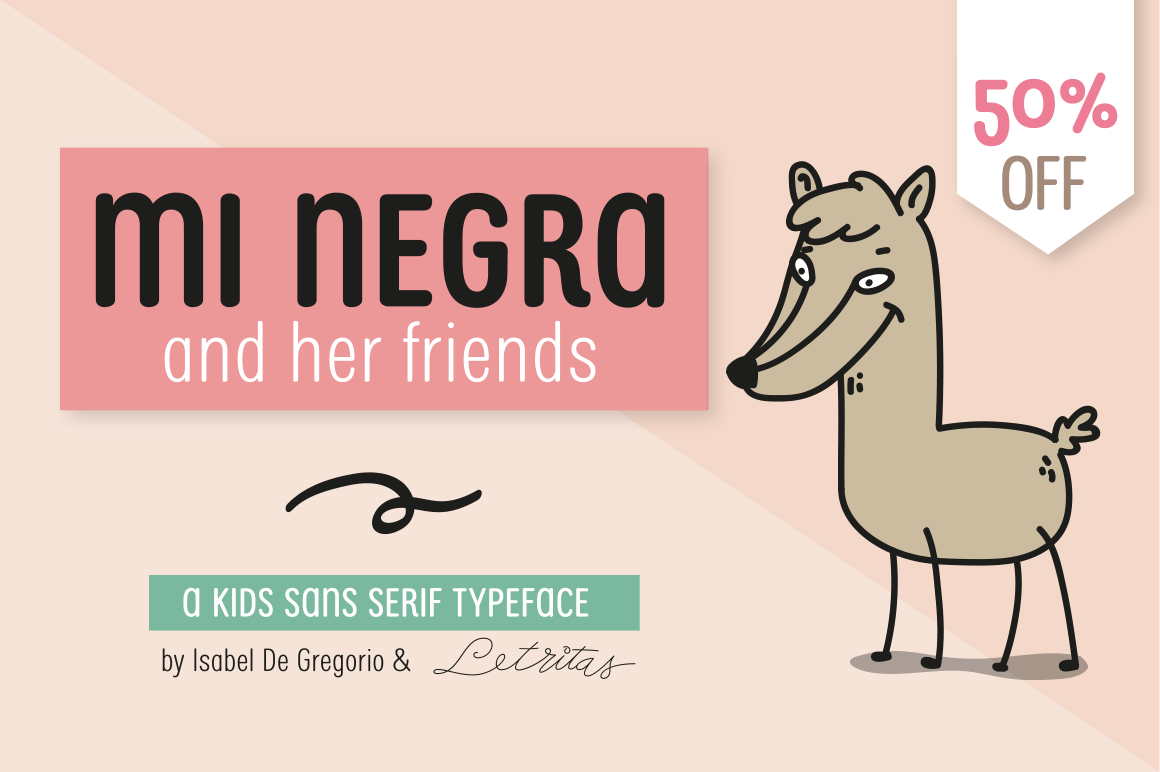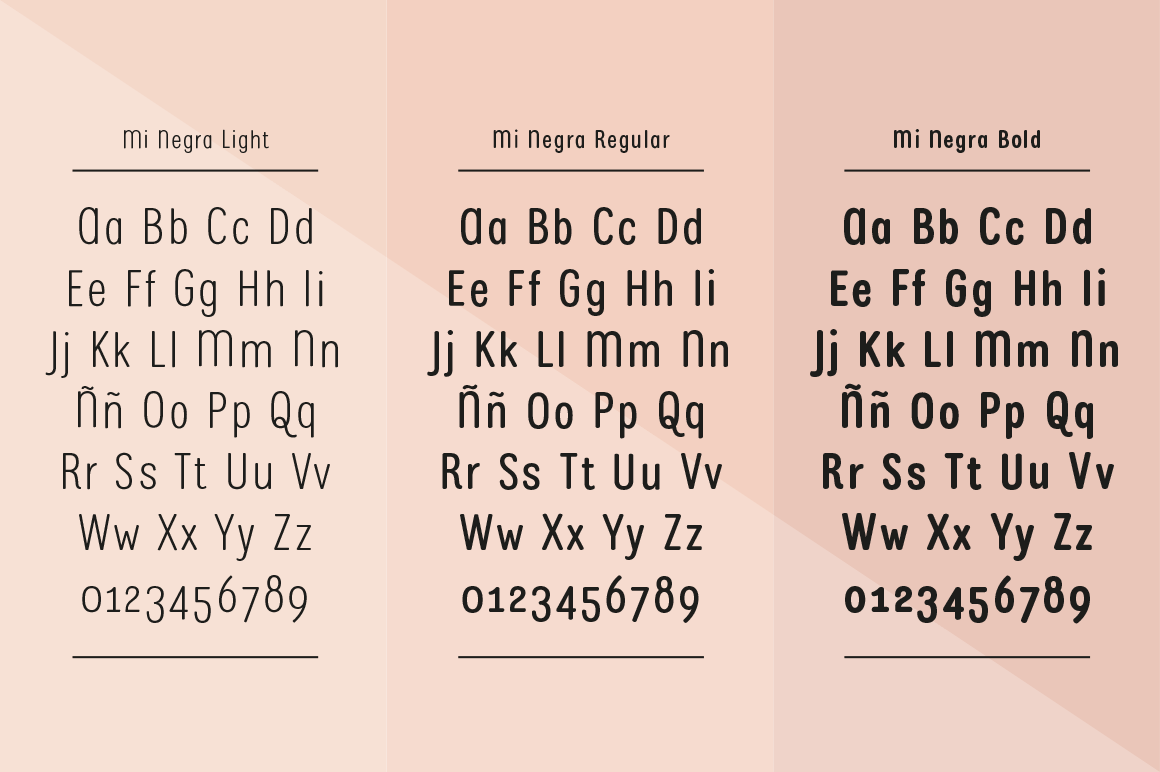
About Mi Negra
Mi Negra is a funny and hilarious typography designed especially for children, thought and created by Isabel de Gregorio. It could be described as an original combination between a semi-handwright and semi sans-serif font. Thanks to its structure and…